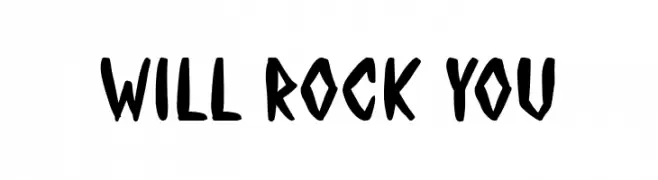
A bold, expressive script font with fluid, dynamic strokes.
A modern, geometric font with angular lines and unique cut-out sections.
An elegant, flowing script font with a handwritten style.
A bold, playful font with a retro vibe and slight slant.
A tall, slender font with sharp serifs and a vertical emphasis.
A playful, artistic script font with a hand-drawn, whimsical style.
A playful and energetic script font with fluid, connected letterforms.
A bold, distressed font with a gritty, urban style.
A bold, hand-drawn font with dynamic and edgy characteristics.
A bold, playful handwritten font with energetic strokes and a lively appearance.